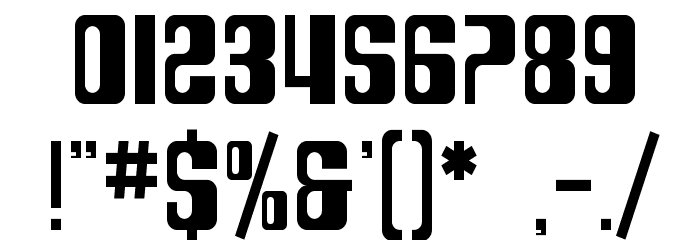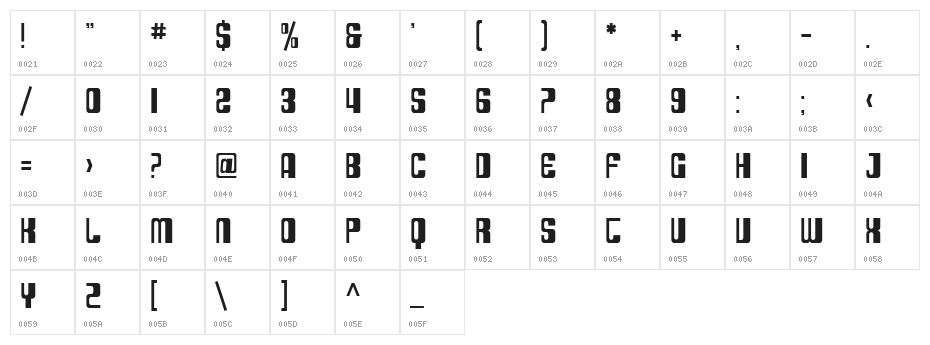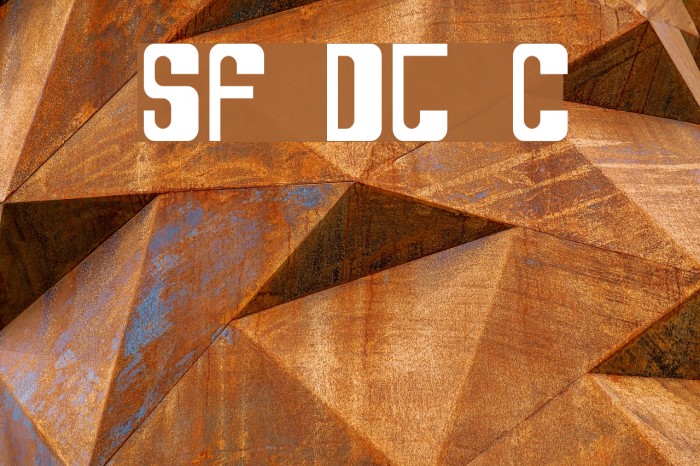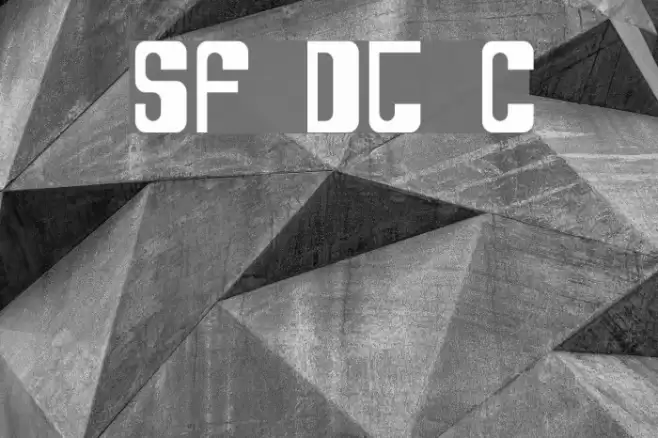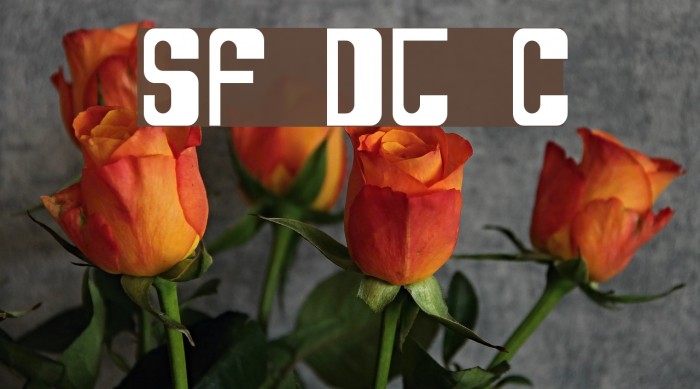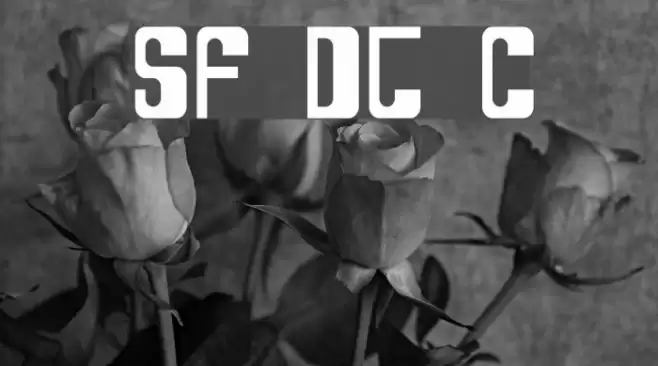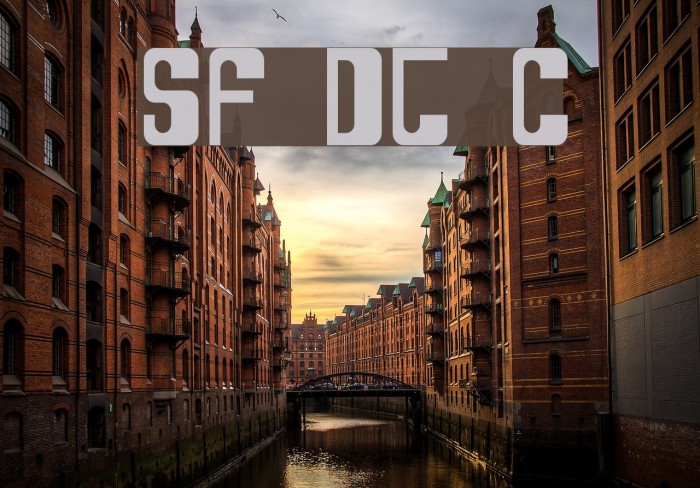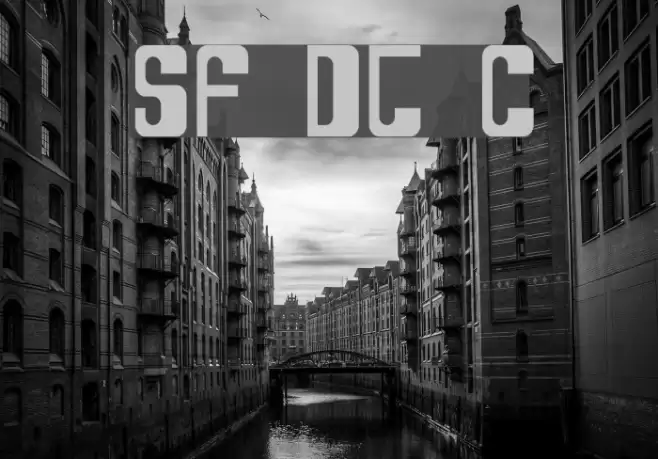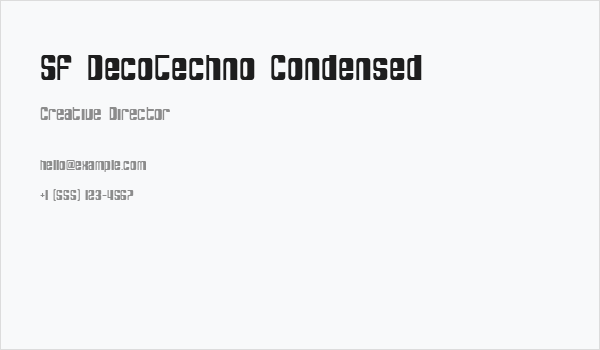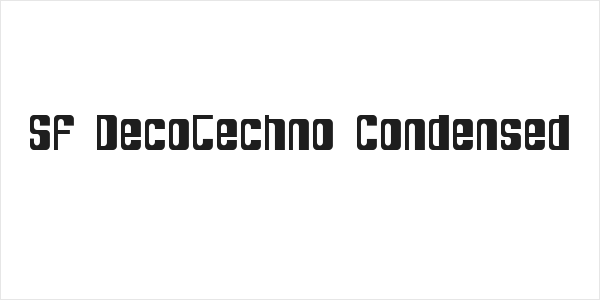
SF DecoTechno Condensed Font
SF DecoTechno Condensed Description
This font features a bold, condensed style with a distinctly modern and technological aesthetic. The characters are designed with a geometric precision, showcasing uniform stroke widths and a strong vertical emphasis. The uppercase letters are tall and narrow, while the lowercase letters maintain a consistent height that complements the uppercase. Numbers and special characters follow the same design principles, ensuring a cohesive look across all glyphs. The font's clean lines and minimalistic approach make it suitable for projects that require a futuristic or industrial feel.